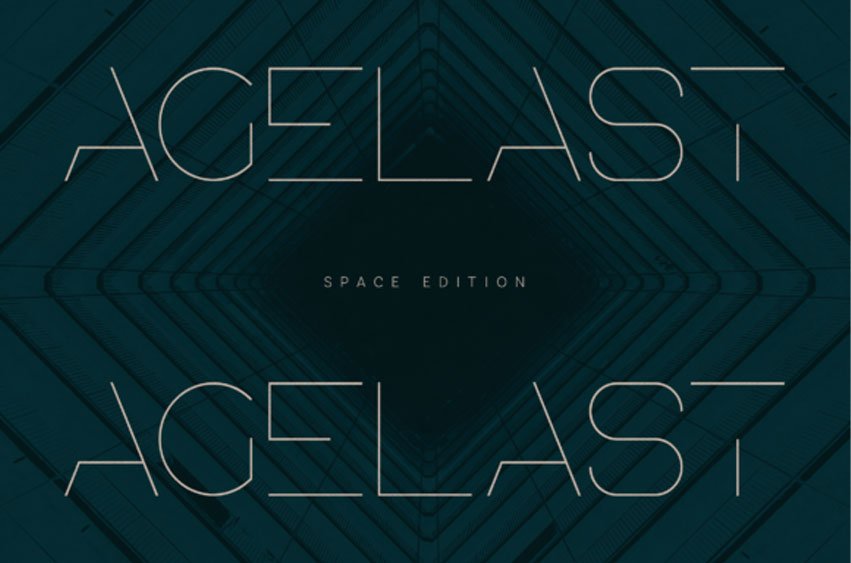
Agelast Font is a modern futuristic display font designed with thin geometric strokes and minimalist letterforms. The typography combines clean structural lines with a sleek sci-fi aesthetic, creating a distinctive futuristic character.
Agelast is ideal for technology branding, futuristic design projects, sci-fi visuals, space themed graphics, modern editorial layouts, posters, digital interfaces, creative typography compositions, and contemporary visual identities. The thin geometric strokes create typography that feels innovative, stylish, and highly distinctive.